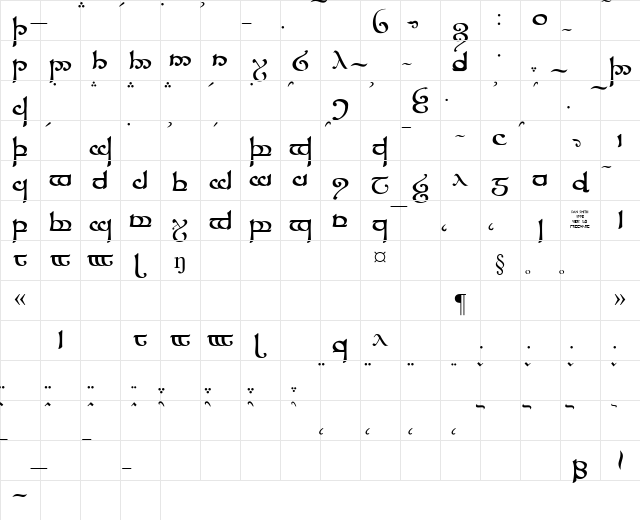
Tengwar Sindarin Regular
Design Context for Tengwar Sindarin
Tengwar Sindarin is a composed and adaptable typeface that performs quietly and consistently across a wide range of design contexts.